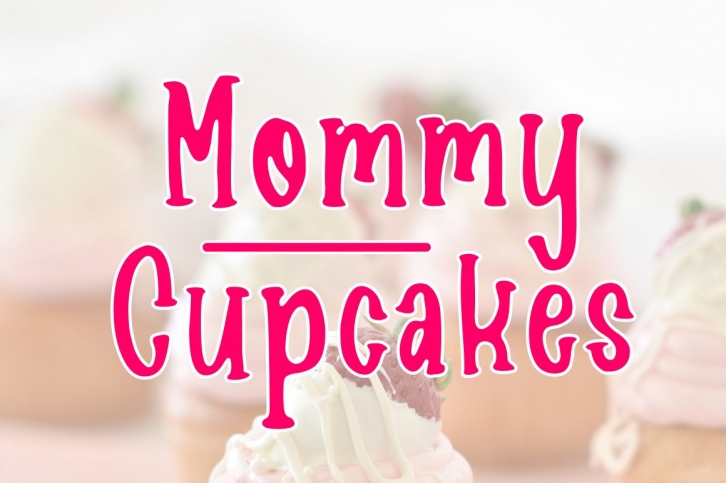
Mommy Cupcakes is a great font that was designed by Sronstudio. Imagine the amount of combinations you can create using this font! The archive is 5.36 MB and it was released on September 3, 2020. Mommy Cupcakes looks beautiful on wedding invitations, greeting cards, logos, posters, labels, t-shirt designs, logos, business cards and is perfect for use in ink or watercolor works, fashion, magazines, packaging and food menus, children's books and more!